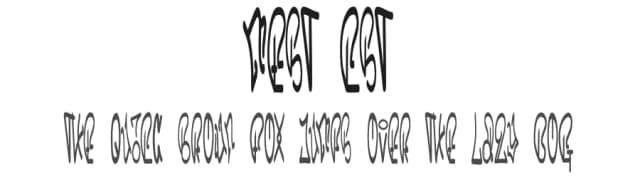
Ugly Faces is a script & handwritten font designed by Christopher, Joseph Hammer. It includes 34 glyphs, a regular weight, OTF (CFF) format, and 168 languages. Ugly Faces is free to download; check the license details on this page before commercial use. Script & handwritten fonts like Ugly Faces work best for wedding invitations, greeting cards, signatures, and elegant branding.
Ugly Faces Font is a script font that shines as a display or heading face. Pair it with a clean sans-serif or serif font for body text β the contrast creates a clear hierarchy while the two styles stay balanced and easy to read.